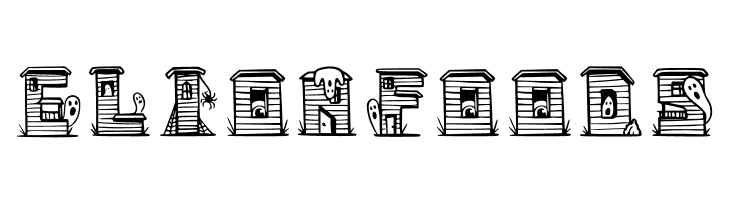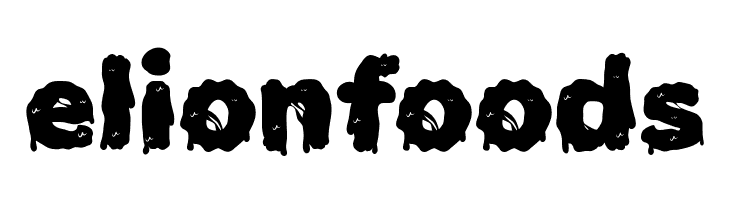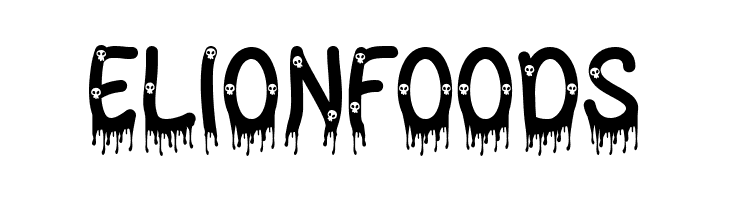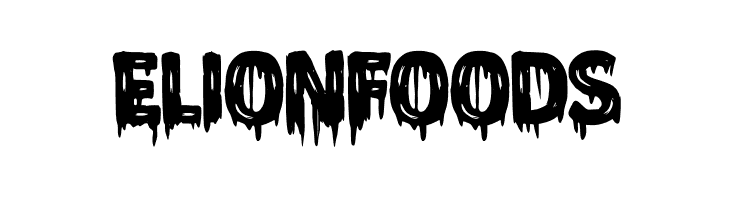
A horror-themed font with dripping, melting letters ideal for spooky designs.
A decorative font with letters styled as haunted houses, perfect for spooky themes.
A spooky, decorative font with scratchy, uneven strokes.
A bold, dripping font perfect for spooky or playful themes.
A bold, spooky font with a dripping effect, ideal for Halloween themes.
A spooky, decorative font with jagged edges and a dripping effect, perfect for Halloween themes.
A spooky, dripping font ideal for Halloween themes.
A dripping, horror-themed font ideal for spooky designs.
A bold, dripping font perfect for horror-themed designs.
A bold, distressed font with a spooky, eerie aesthetic.